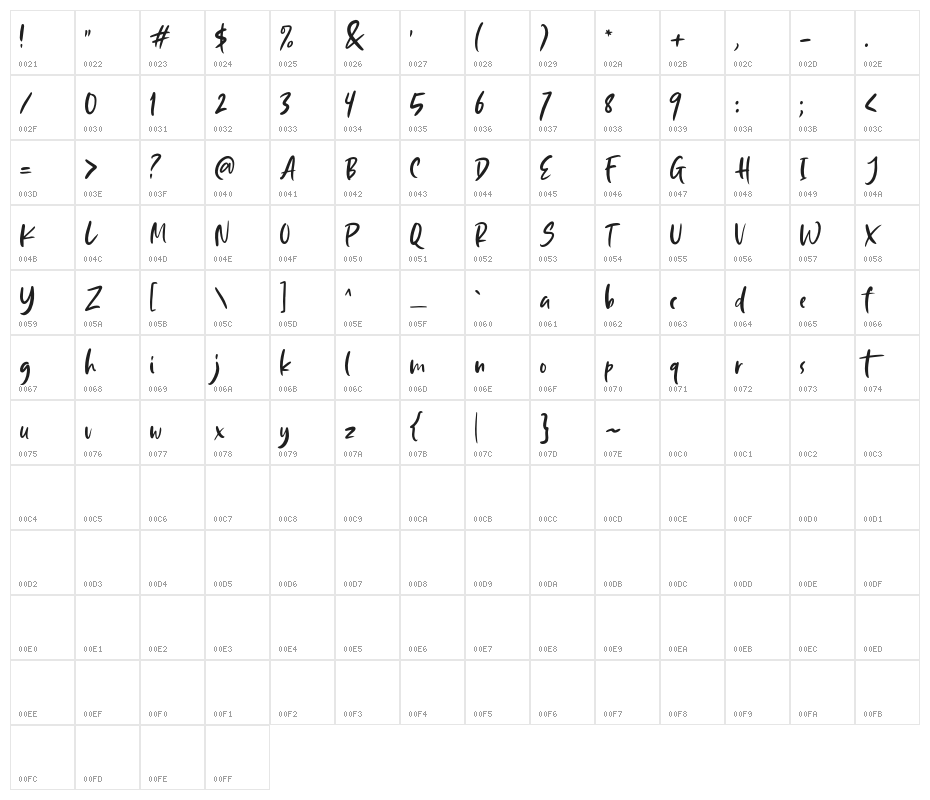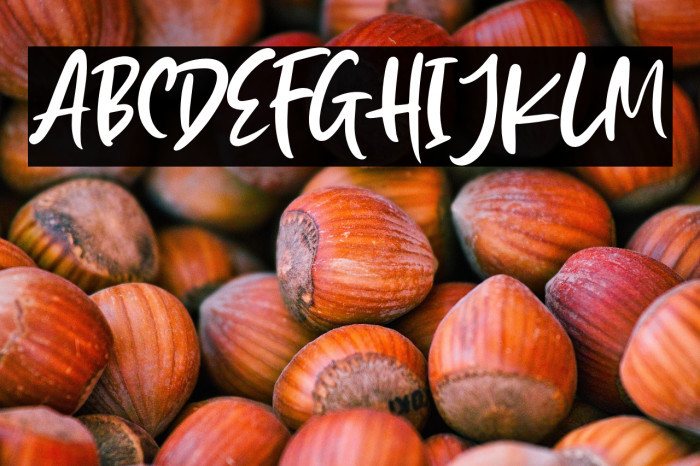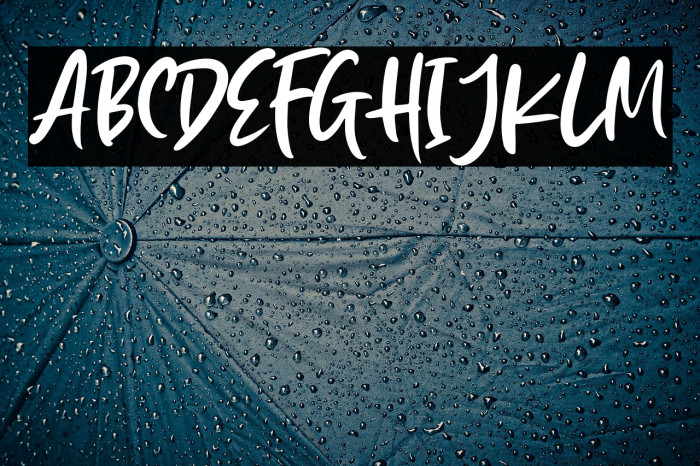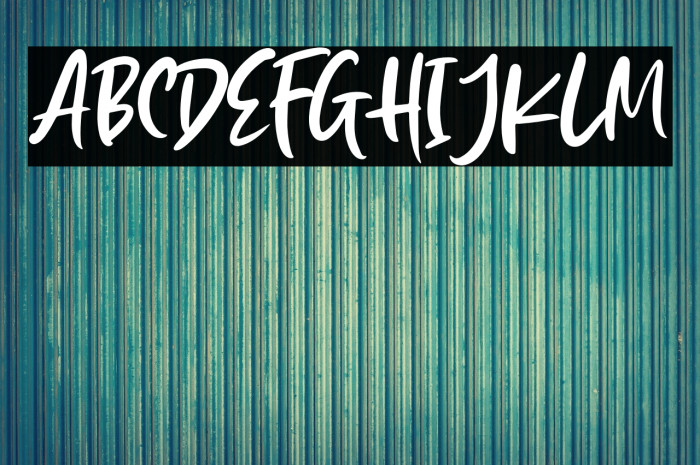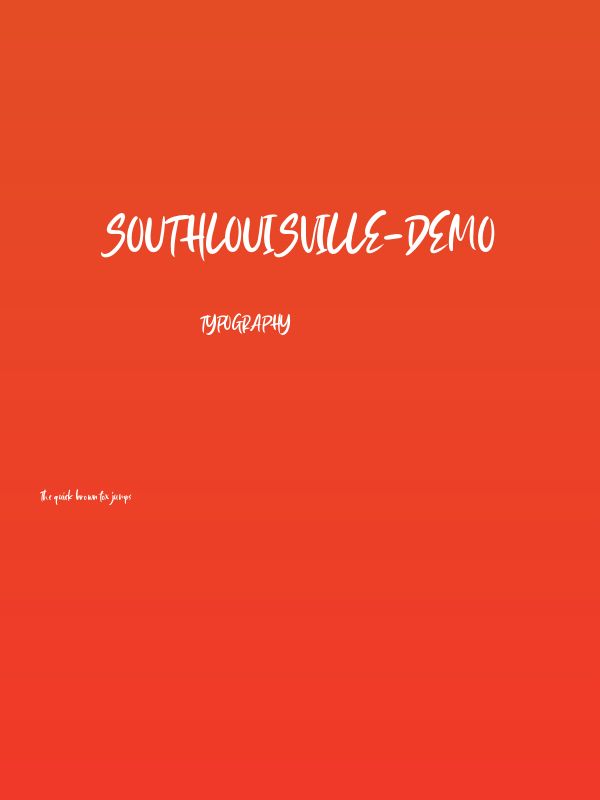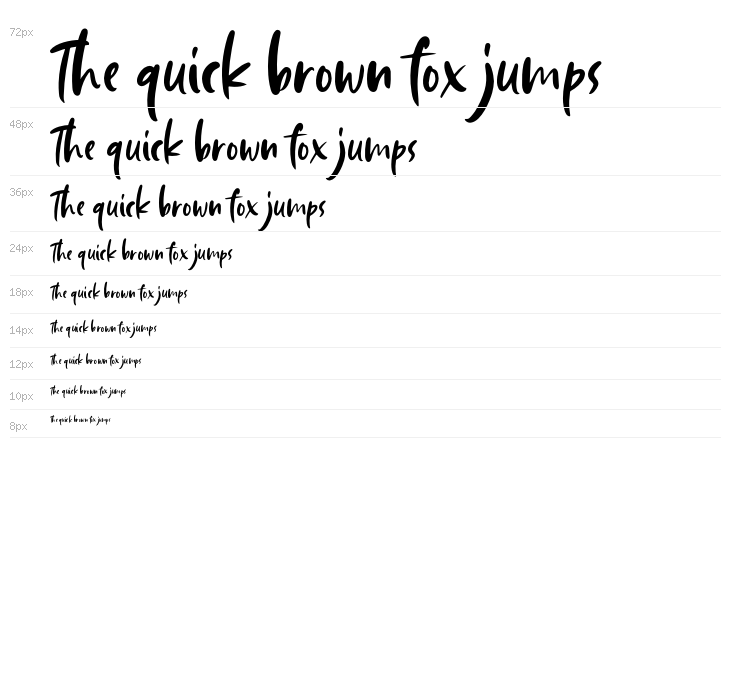
SouthLouisville-DEMO Font
SouthLouisville-DEMO Description
This font features a dynamic and expressive handwritten style, characterized by its fluid and organic strokes. The letters have a casual yet sophisticated appearance, with varying thickness that adds a lively rhythm to the text. The uppercase letters are bold and confident, while the lowercase letters maintain a playful and approachable feel. The numerals and special characters are consistent with the overall style, ensuring a cohesive look across different uses. The font's energetic and informal nature makes it suitable for projects that require a personal touch.